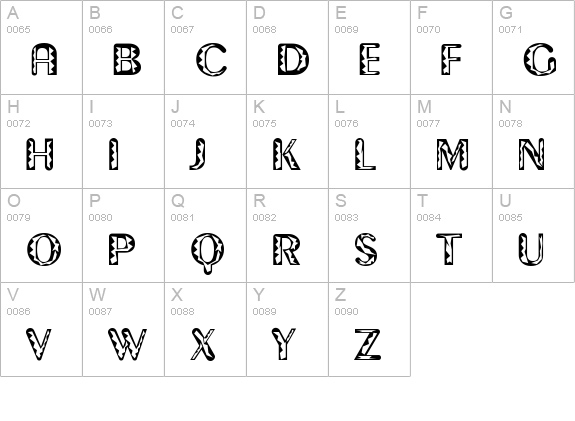
Gilgongo Tiki font is a whimsical and playful typeface inspired by the exotic and vibrant world of tiki culture. With its bold and stylized characters, this font exudes a tropical charm that is perfect for adding a touch of fun to your designs. Whether you're creating party invitations, posters, or branding materials, Gilgongo Tiki font is sure to bring a festive and laid-back vibe to your projects. The best part is that Gilgongo Tiki font is available for free download at FontsMarket.com. So go ahead and unleash your creativity with this unique and eye-catching typeface!